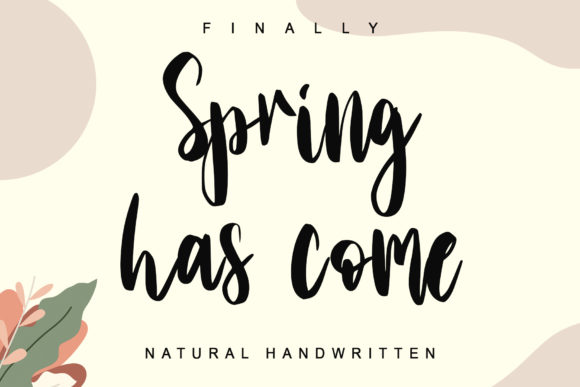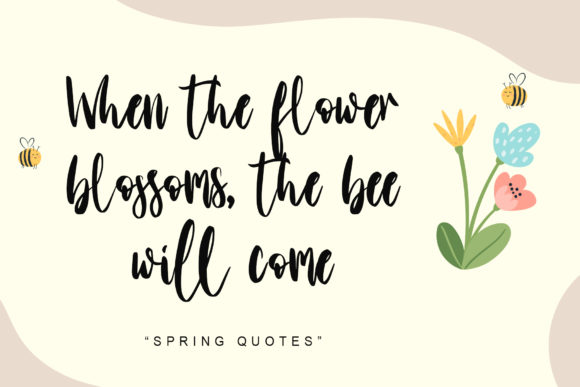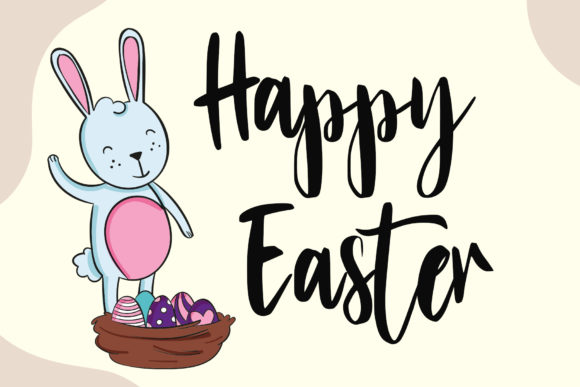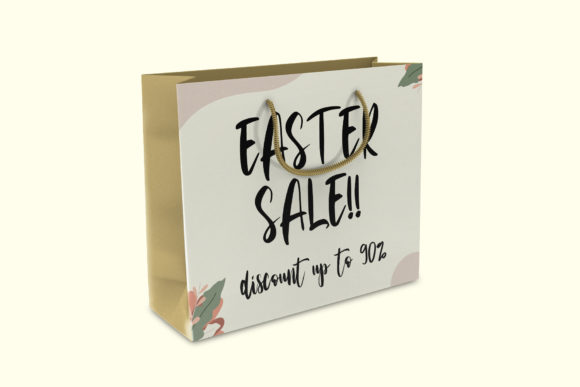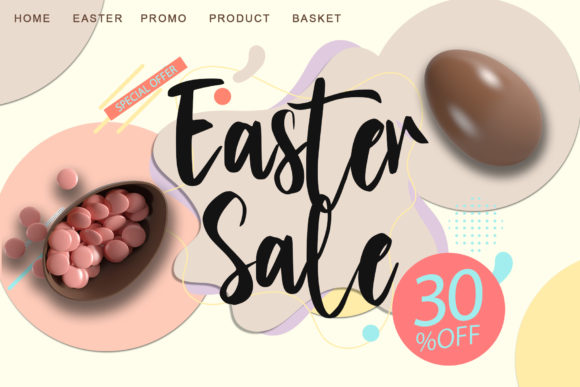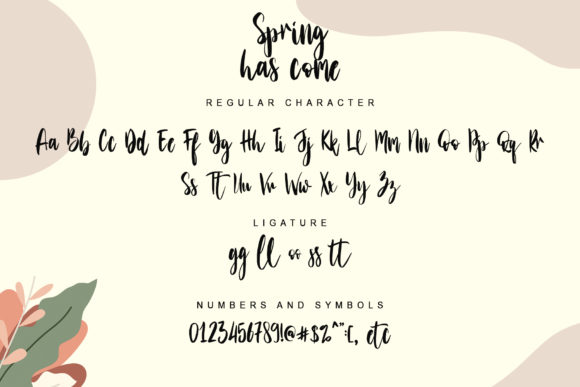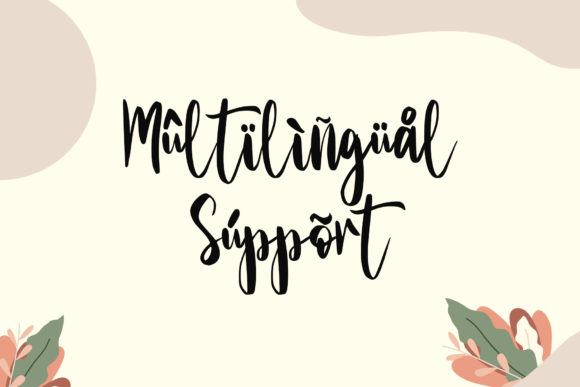
Spring Has Come Font
About Spring Has Come Font
Spring Has Come is an elegant and dainty handwritten font that features sweet and delicate swashes. This original look will appeal to a wide range of crafty ideas, from letterheads and titles, to stationery.